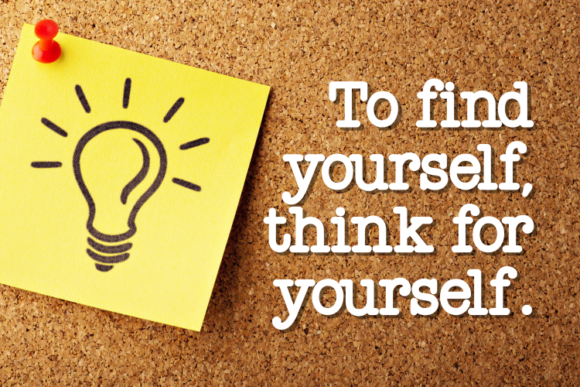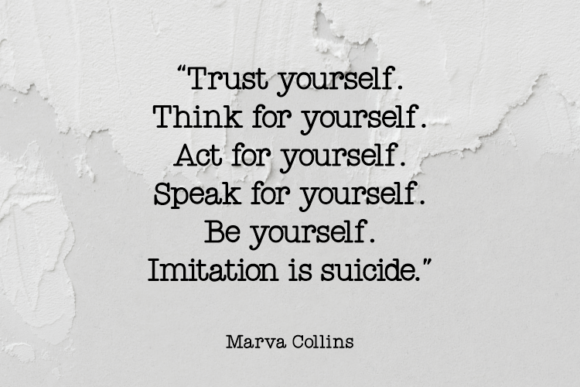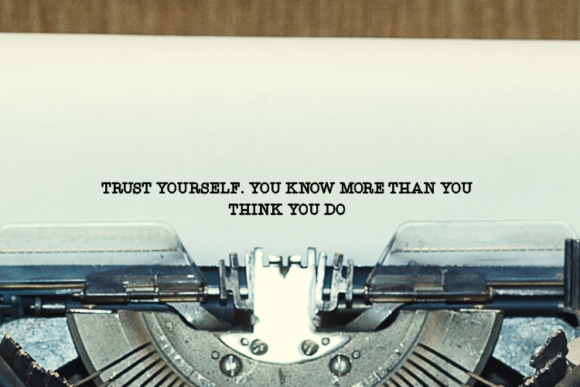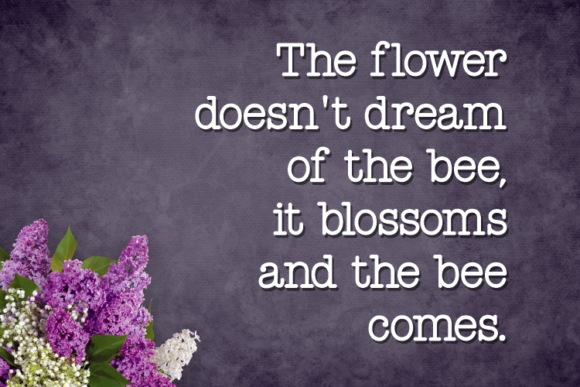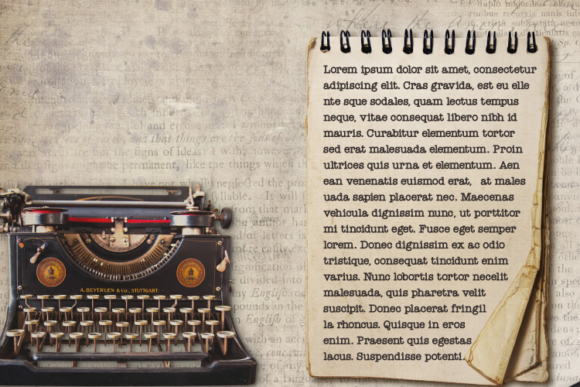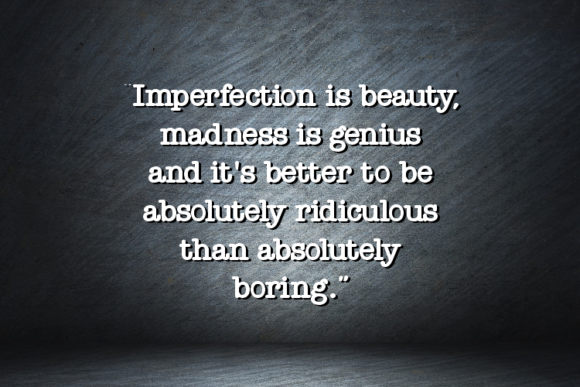
Introduction to Ketikan Font
Ketikan is a creative and unique alternative solid typewriter font.
The perfect font when looking for that authentic and original typewriter feel to your designs This beautiful design combines the simplicity of typewriting stains.
Key Features of Ketikan Font